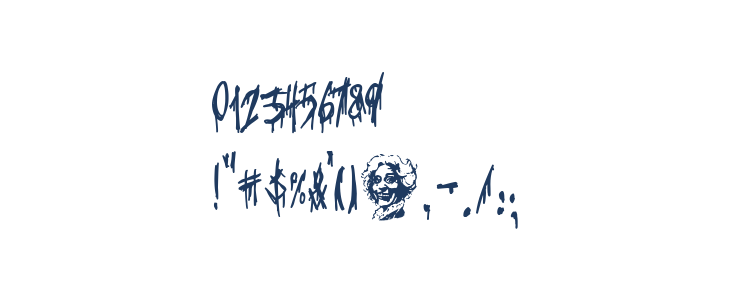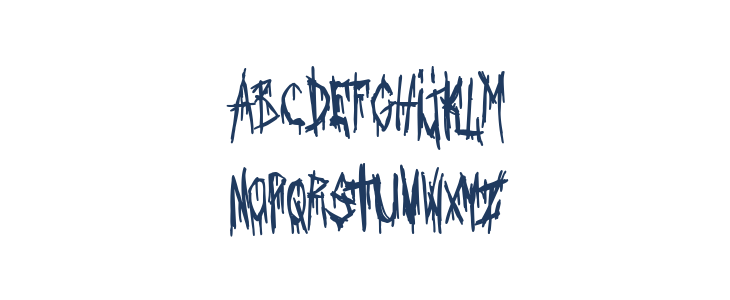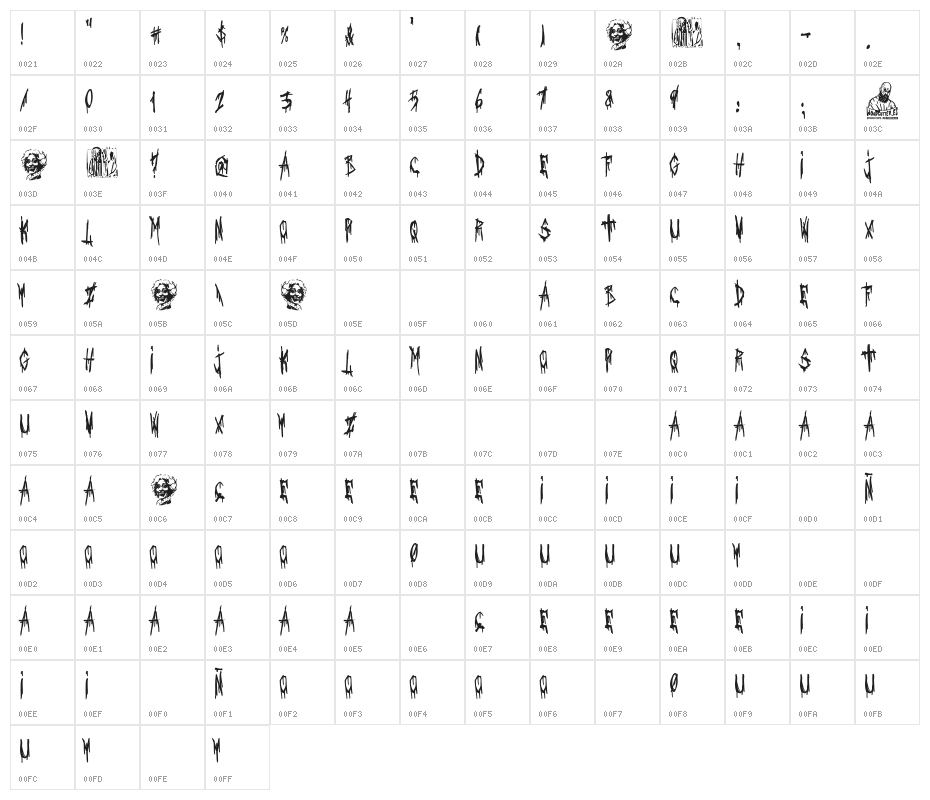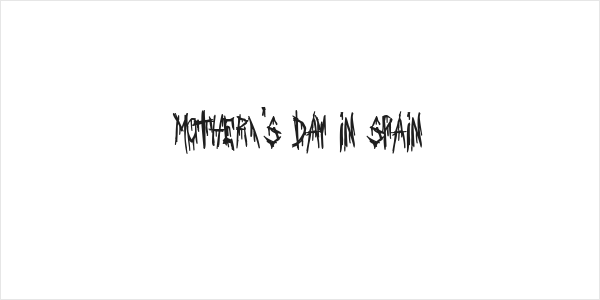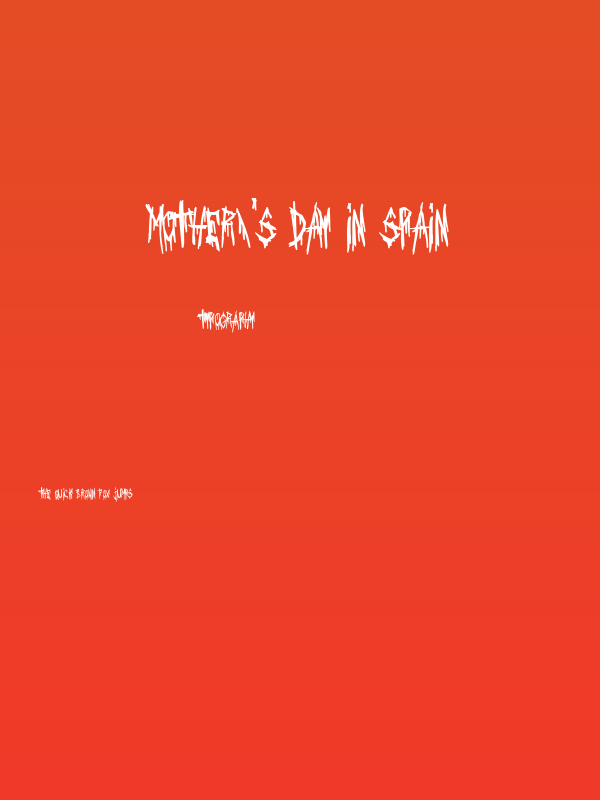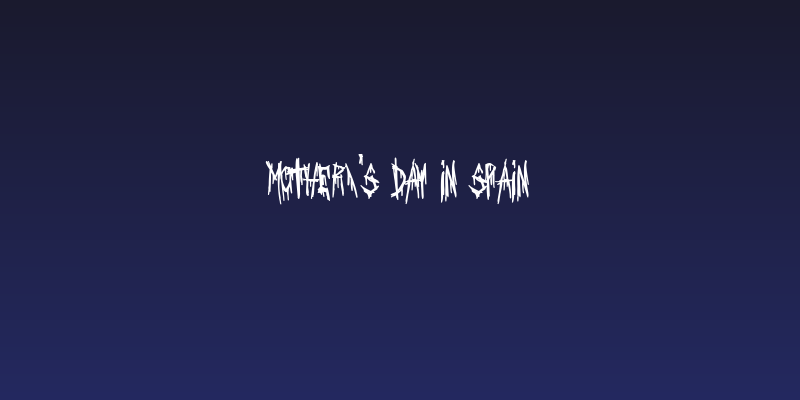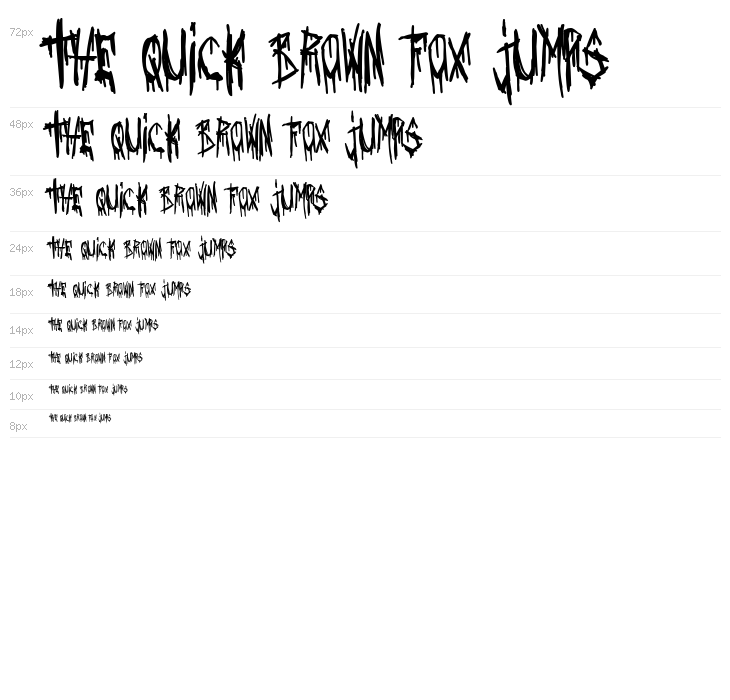
Mother's Day in Spain Font
Mother's Day in Spain Description
A highly decorative, distressed font with jagged, uneven strokes and an erratic, hand-drawn appearance. The characters are tall and narrow, with exaggerated ascenders and descenders, creating a chaotic and intense visual effect.
| Overall Style | Decorative, Grunge, Horror |
| Use Case | Headlines, Posters, Logos |
| Proposed Projects | Horror posters, Halloween invitations, band logos, edgy branding, alternative event flyers. |